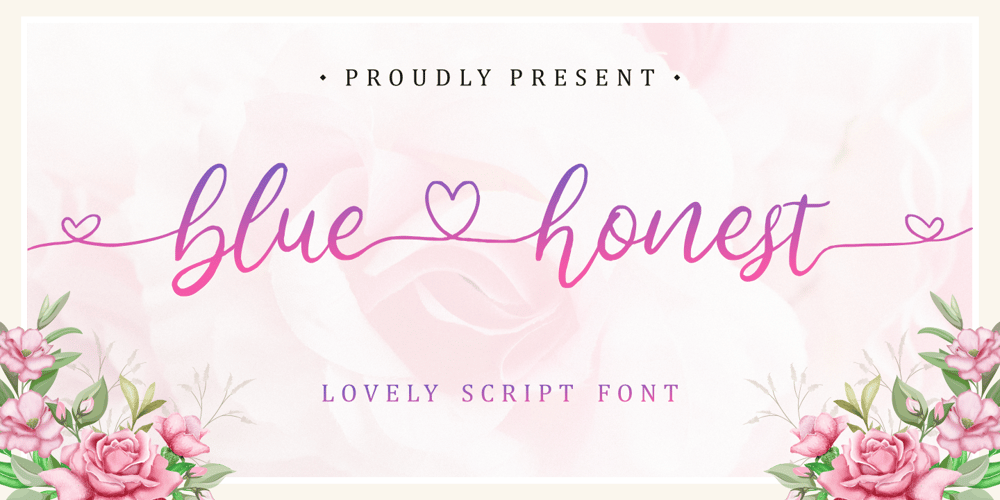
Bluehonest font
Bluehonest Font Family was designed by Fachrizal Yusuf and published by Allouse Studio. Bluehonest contains 1 styles and family package options. Lovely Script Font.Bluehonest come with many stylistic-alternates to fulfill your need. Lovely Alternates Uppercase, Regular and Lovely Beginning and Ending Swash, Big Love ending swash to pairing initials/name/anything, Multi-Lingual Support.We highly recommend using a program that supports OpenType features and Glyphs panels like many of Adobe apps and Corel Draw, so you can see and access all Glyph variations.Bluehonest is perfect for any tittles, logo, product packaging, branding project, megazine, social media, wedding, or just used to express words above the background.